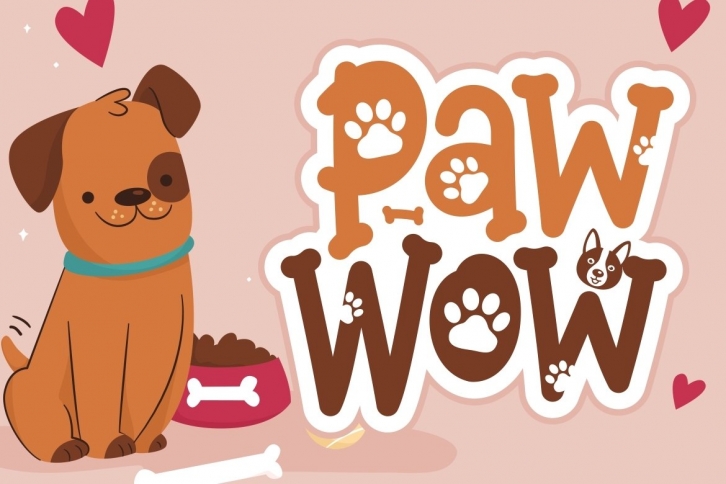
Paw Wow is a trendy and unique font with an authentic style. It was designed by HansCo and it's a great choice for creative people who need such a font. It was released on May 28, 2020 and the file size is 12.59 MB. Paw Wow will add an organic vibe to any design idea!